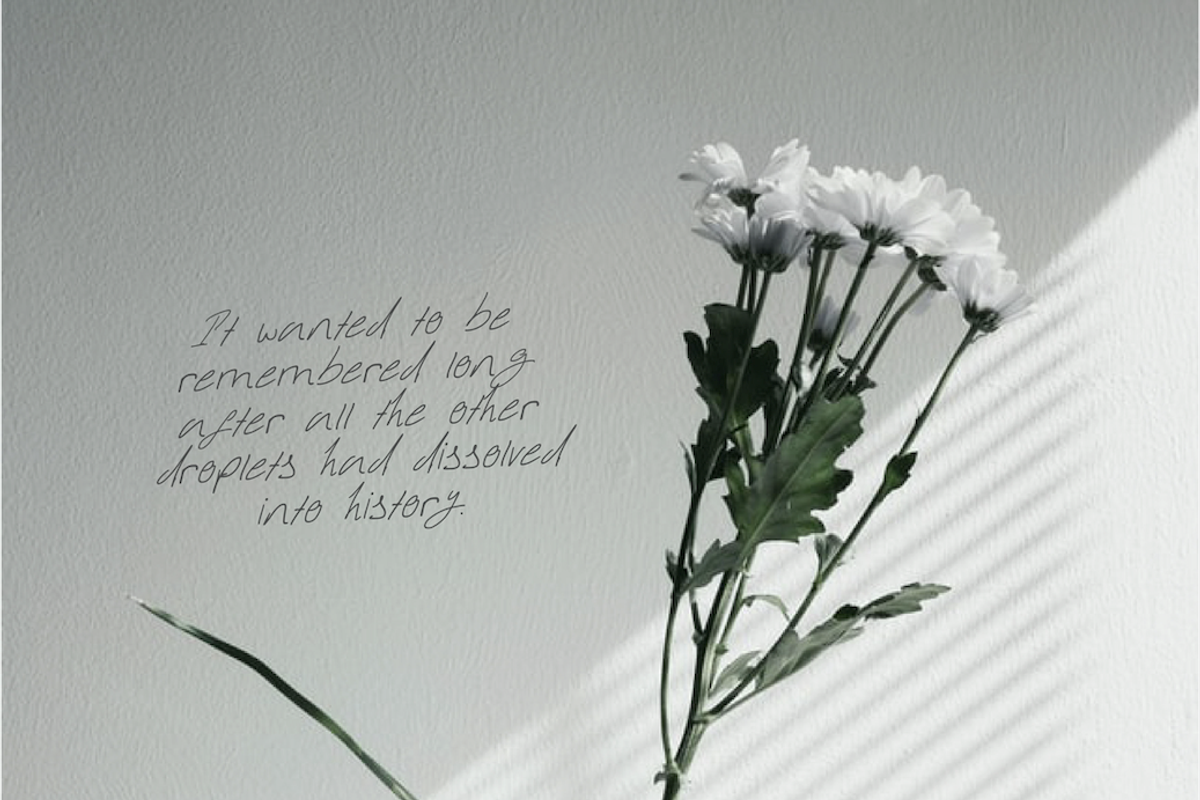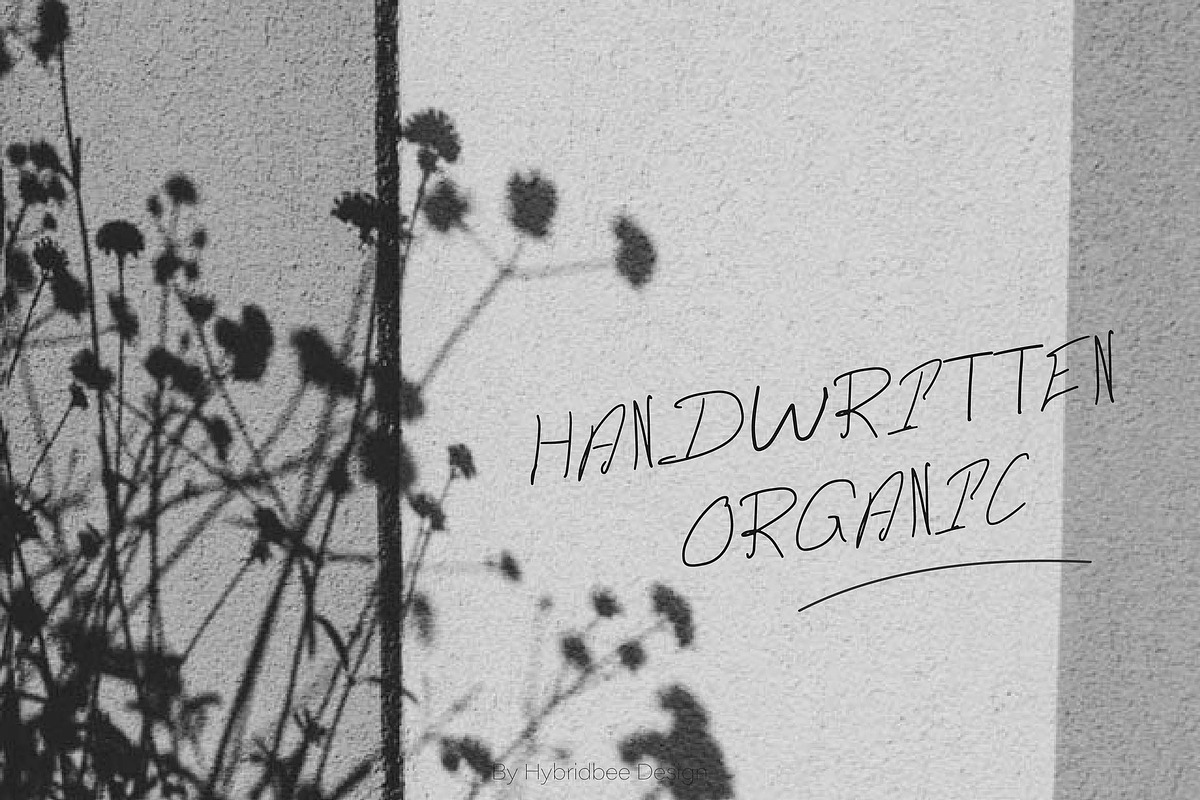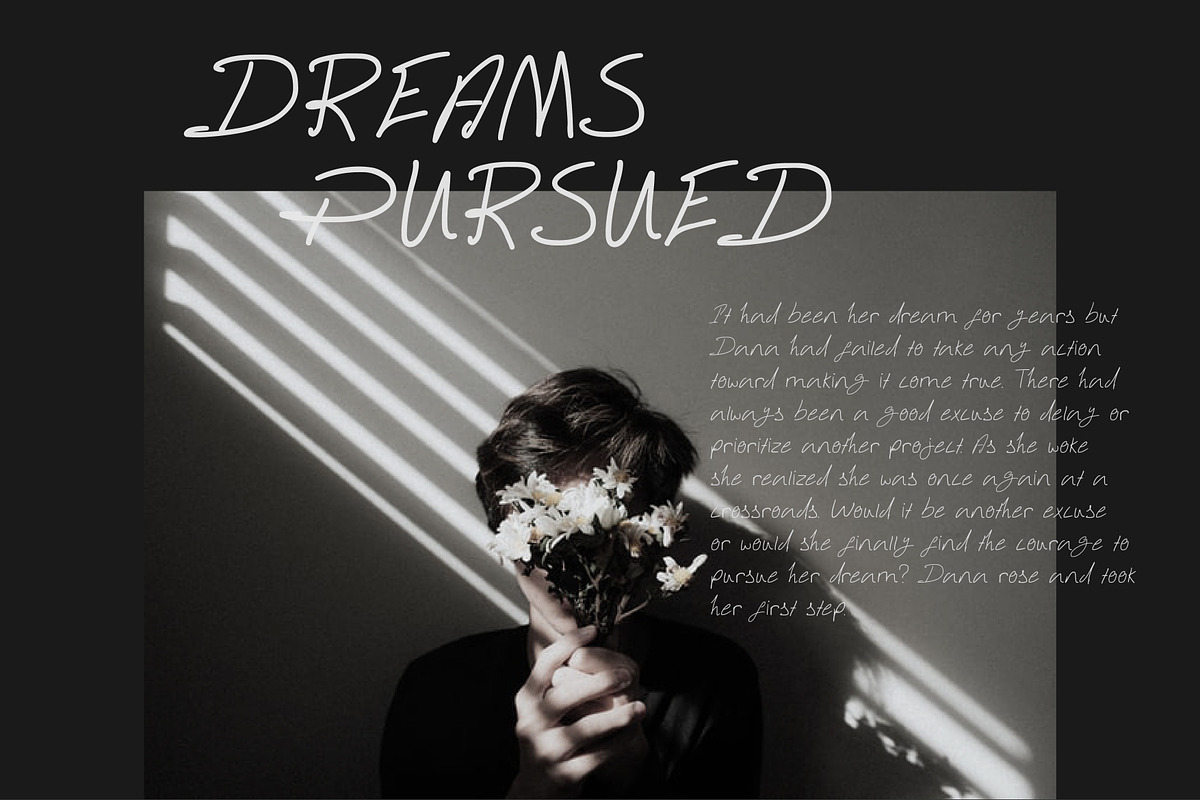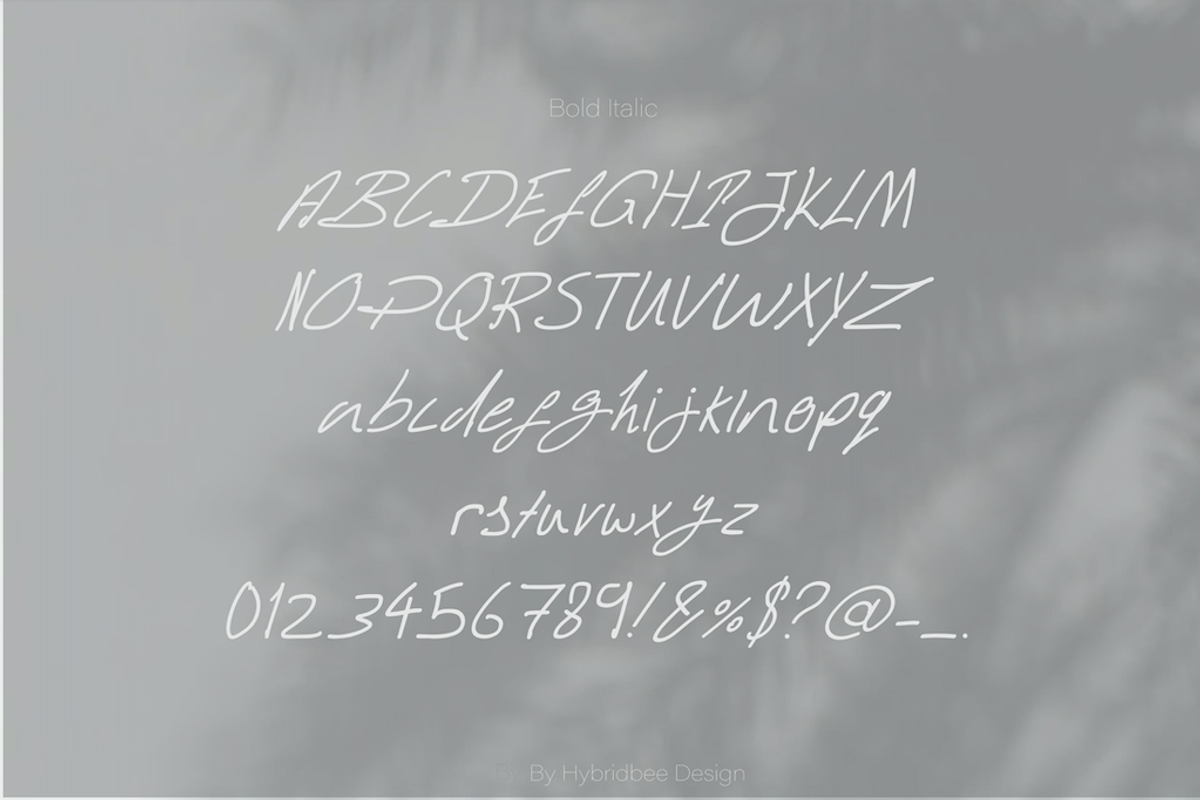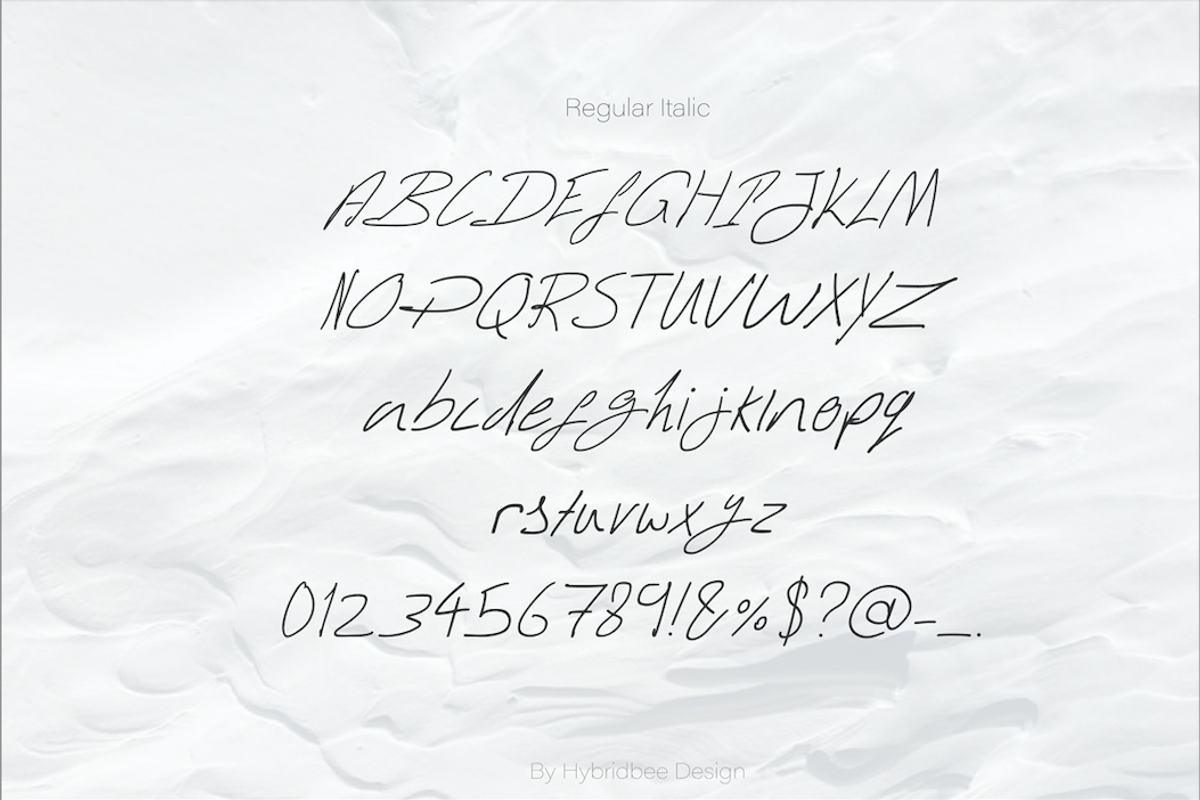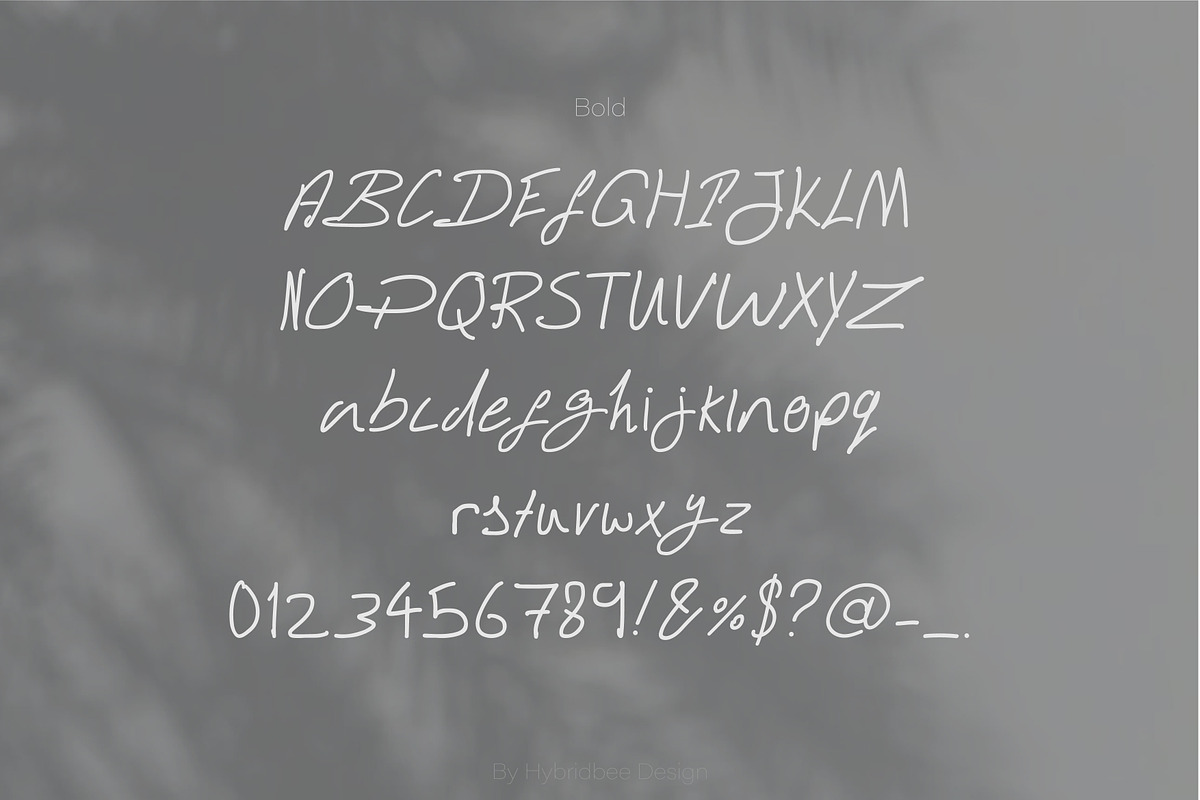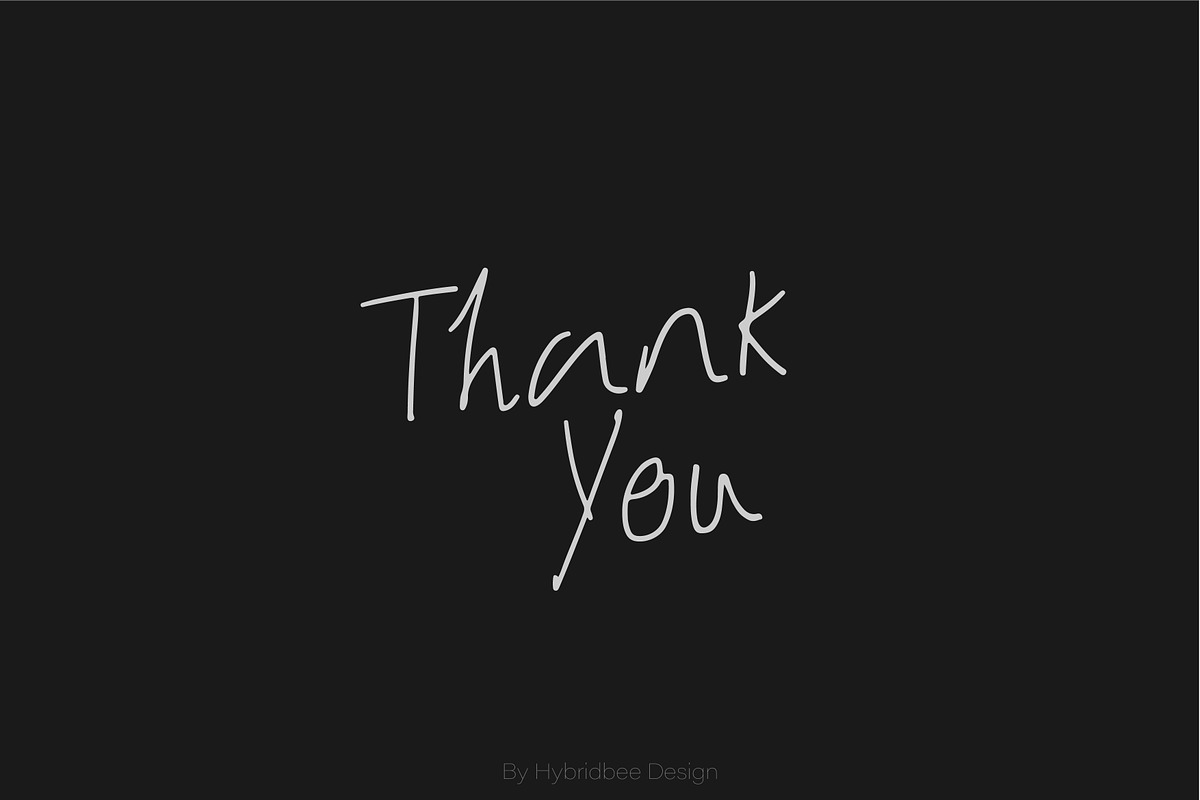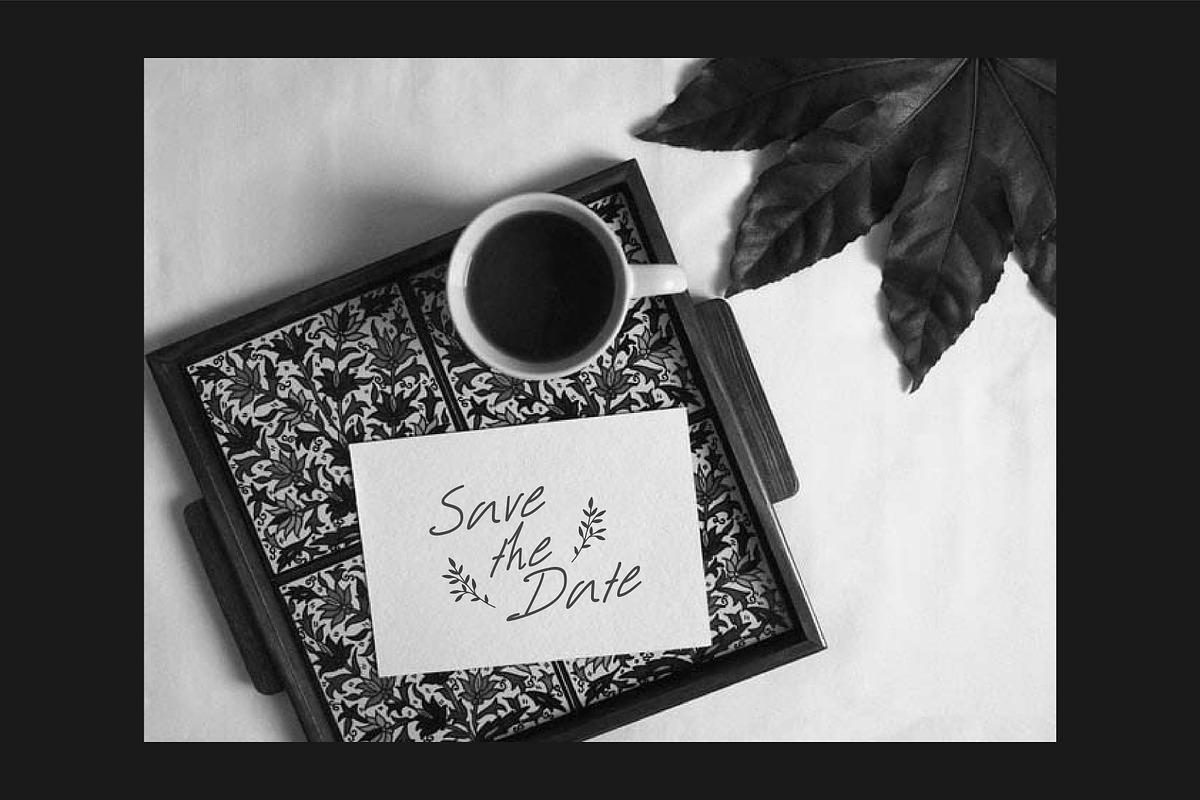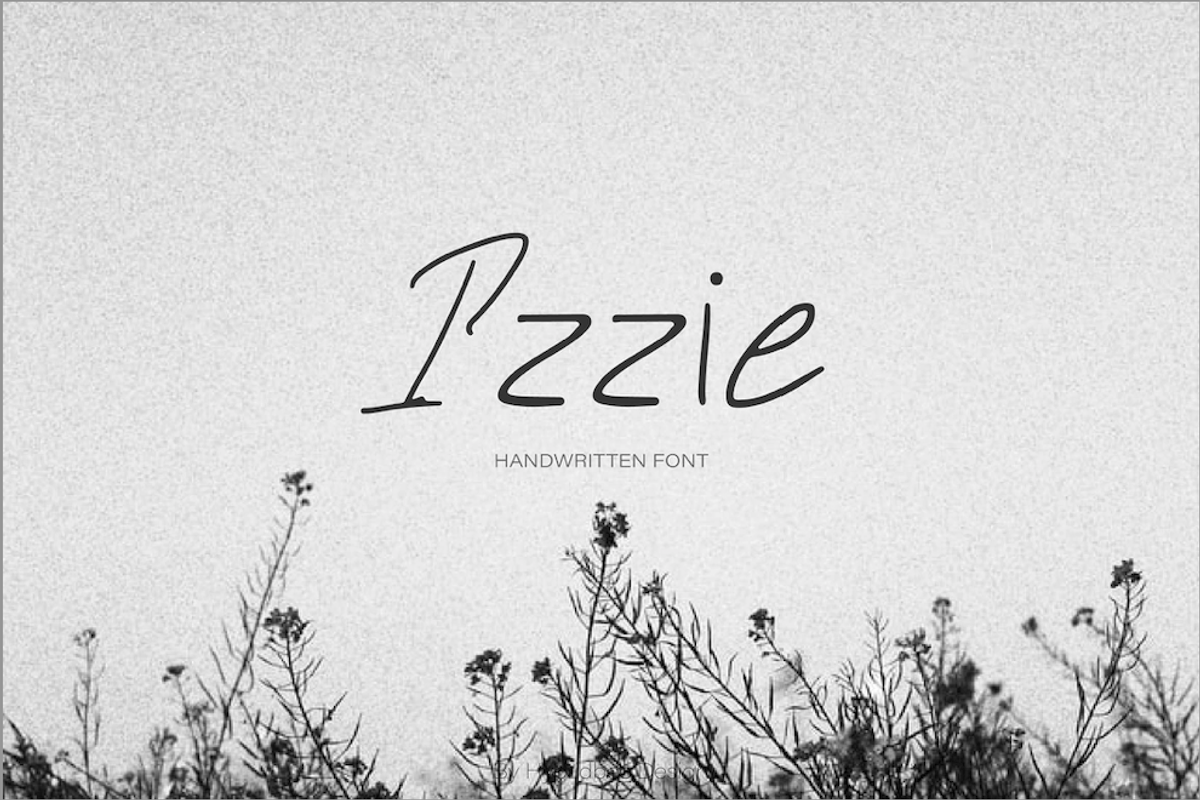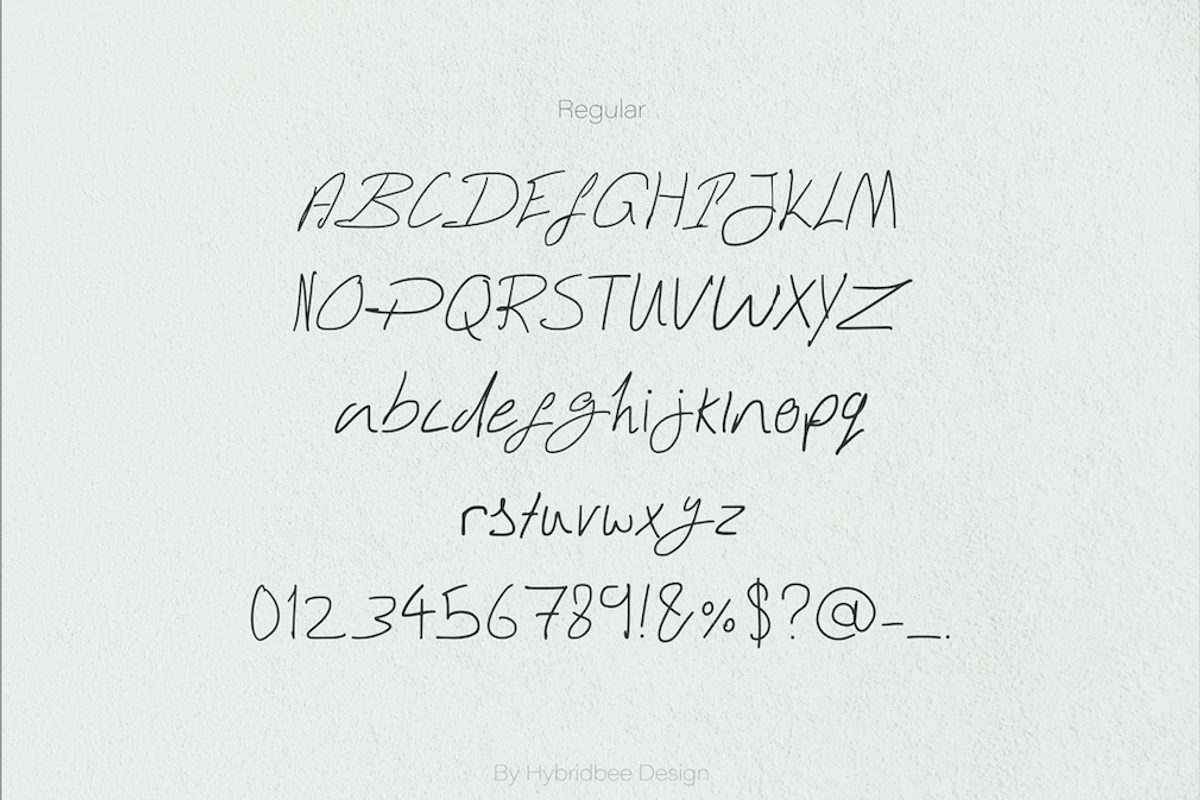
IZZIE - Handwritten Font
IZZIE – Handwritten Font
Izzie is a handwritten font that is organic and unique in its imperfection. It includes uppercase letters, lowercase letters, numerals and some punctuations in regular, italic, bold and bold italic. It is quite minimalistic and can be used in a variety of design needs for a handmade and authentic touch. Uses can include headlines, branding, packaging, logo, web design, etc.